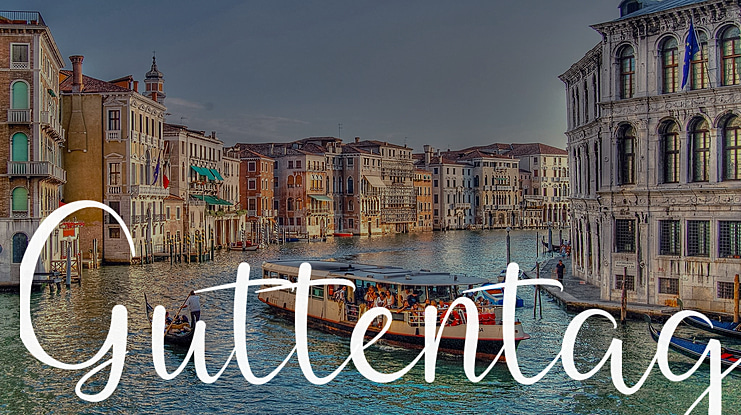
Guttentag Font
Fahrul Anggoro. 2019
Hi, Thanks for downloaded my product font Demo Version. and, now I want to intrduce my new font Called "The Guttentag" . Guttentag is germany language means good morning. Guttentag is a lovely modern script Calligraphy font. It's very perfect for everything your business and design needs such as wedding event, logos, branding and much more.